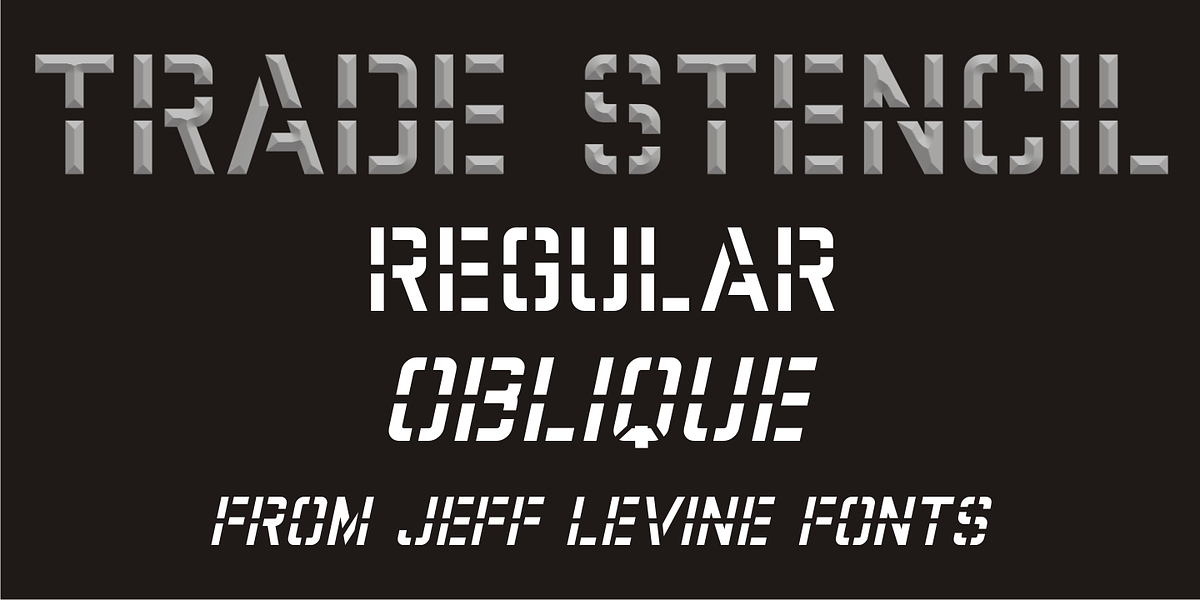
Trade Stencil JNL
Spotted in an online auction was a set of brass stencils (possibly handmade) of which some of the characters were individually displayed.
The interesting placement of where the letters were broken into stencil parts inspired the creation of Trade Stencil JNL, which is available in both regular and oblique versions.